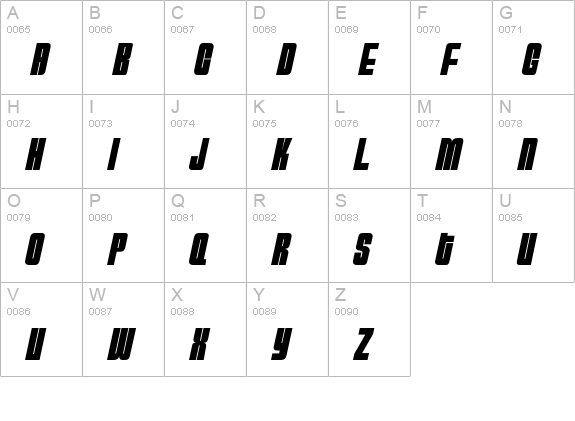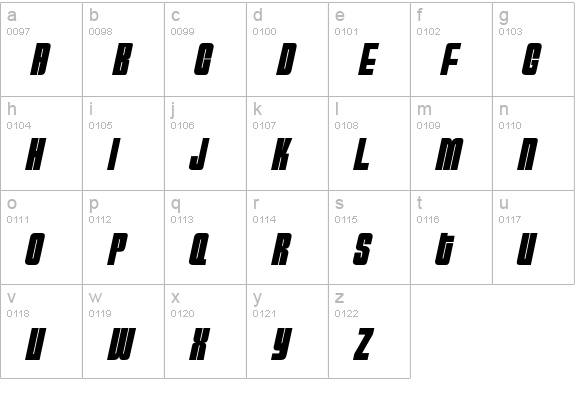
Introducing HydrogenBomb font - a bold and dynamic typeface that exudes power and modernity. With its sharp angles and sleek lines, HydrogenBomb is perfect for making a statement in any design project. Whether you're creating a logo, poster, or website, this font will add a touch of edginess and sophistication. The best part? HydrogenBomb is available for free download at FontsMarket.com. That's right, you can easily access this striking font and elevate your designs without breaking the bank. Don't miss out on this opportunity to enhance your creative projects with HydrogenBomb - download it now and let your imagination soar.